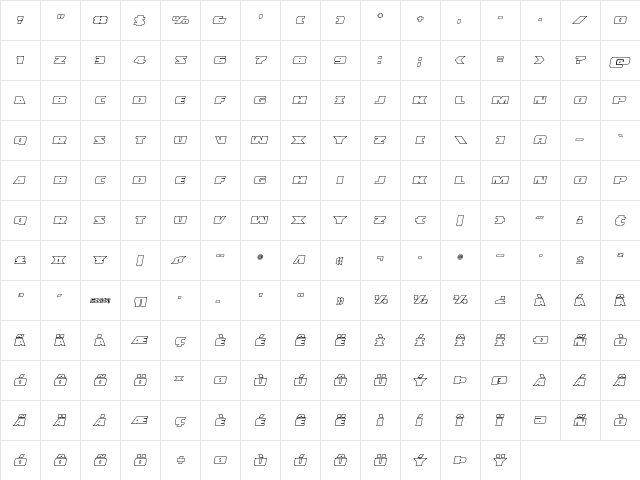
Police Cruiser Outline Italic Italic Font Preview
Design Context for Police Cruiser Outline Italic Typeface
Police Cruiser Outline Italic is built around its visual character rather than neutral utility — its distinctive forms are designed to make an impression at display sizes. Its italic angle brings a sense of urgency and motion to the letterforms.
Font Pairing: Pair with a clean neutral sans-serif for body copy to let Police Cruiser Outline Italic's character lead without overwhelming the composition.
Pro Tip: Use Police Cruiser Outline Italic exclusively at display sizes — it was designed to be seen, not read at length. Let a neutral companion handle body copy.